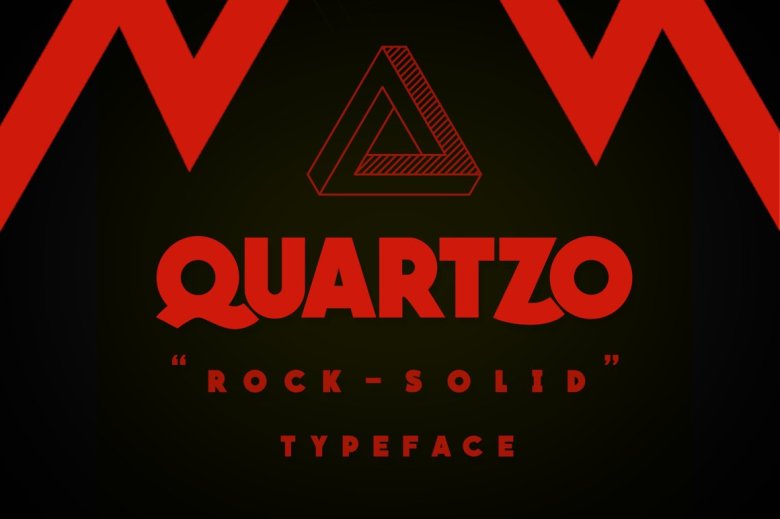
Quartzo Font
Quartzo is a powerful typeface designed for display and headlines. Quartzo alphabet is geometric in proportion and contains beautiful ligatures that make it really unique.
This typeface is classified as an strong all caps sans and is particularly effective on display and branding due to a high legibility and readability.